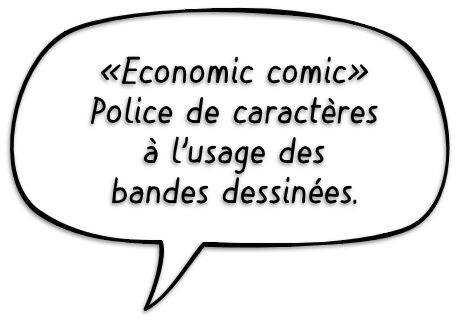
Economic comic
Introducing Economic Comic, the perfect font for adding a light-hearted touch to your projects. Handwritten by designer Ralph Le Gall, it has just enough comic style to bring some fun and creativity to anything you create - from logos and posters to signs and cards!